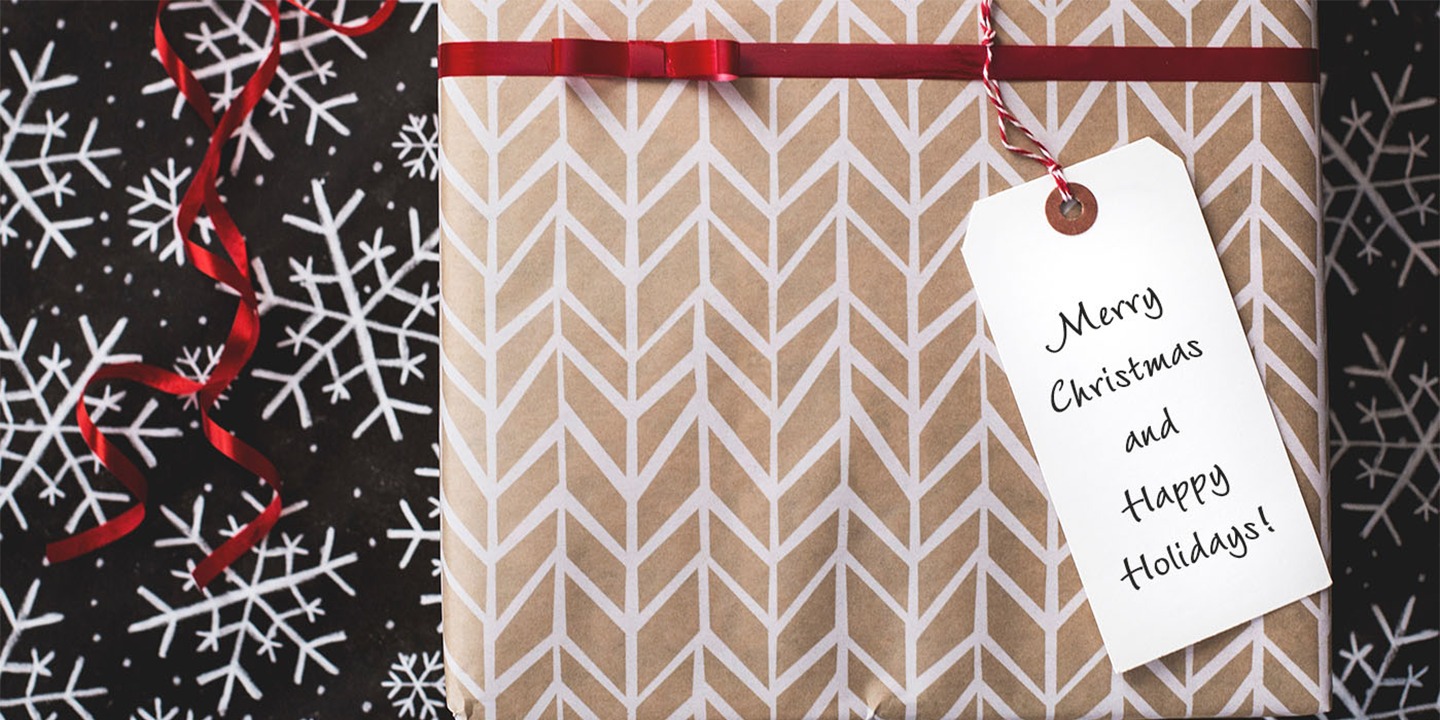
German designer Rosemarie Kloos-Rau created the font in 1992. Wiesbaden Swing is a headline font which offers a fresh and unconventional approach to typography. The light, informal strokes create a feeling of spontaneity and youthful flair. Whether on toast packaging, in fashion catalogues or in technical fields, Wiesbaden Swing is a flexible font which can be used for a variety of applications. Wiesbaden Swing is part of the Linotype Library.